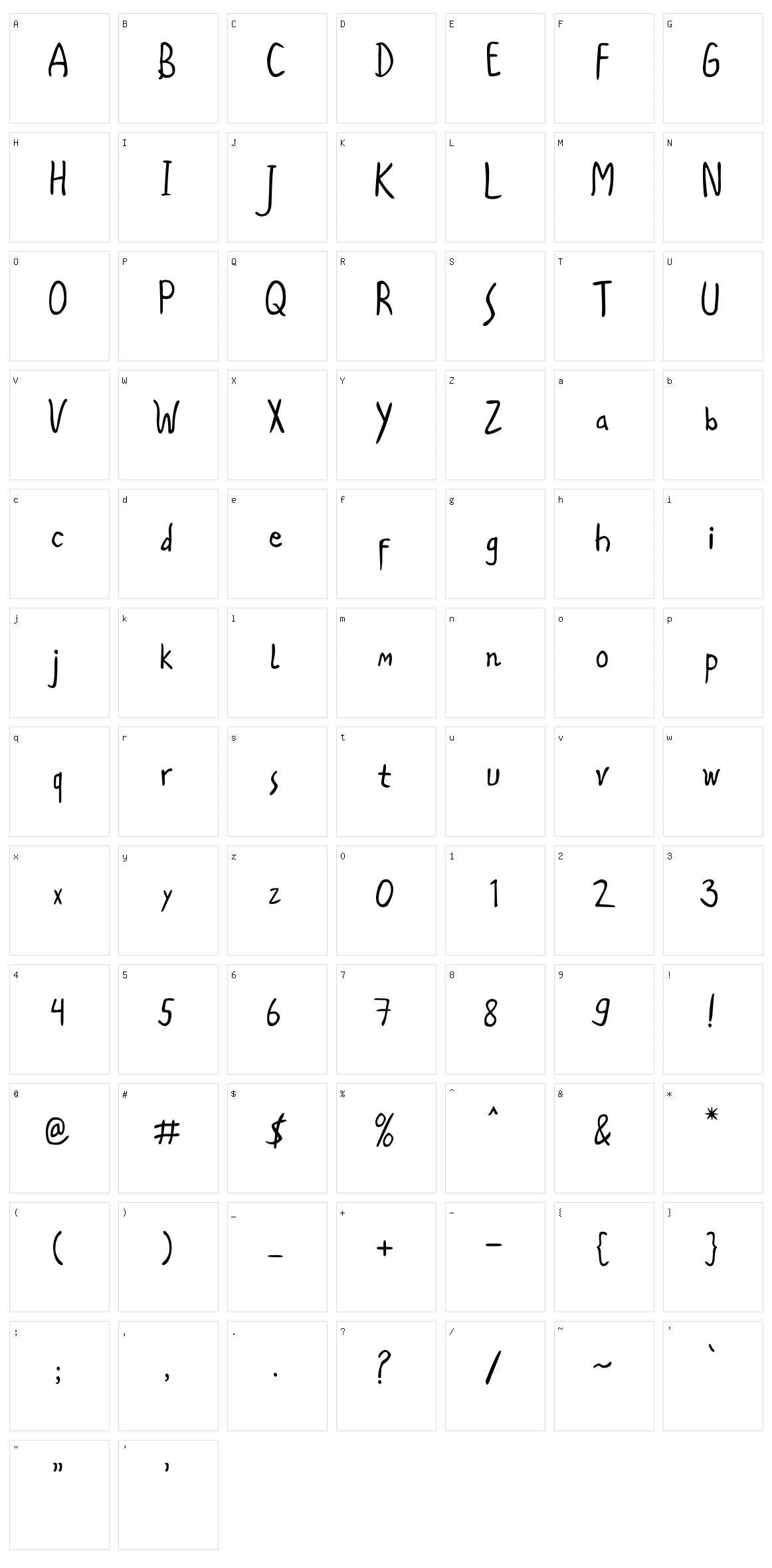
Arshavina is a Display Font that has Natural feels and unique Handrawn Illustration, it suits for any of your commercial projects logo, wedding designs, social media posts, advertisements, product packaging, product designs, label, photography, watermark, invitation, stationery and any projects that need Unique & Handrawn Taste